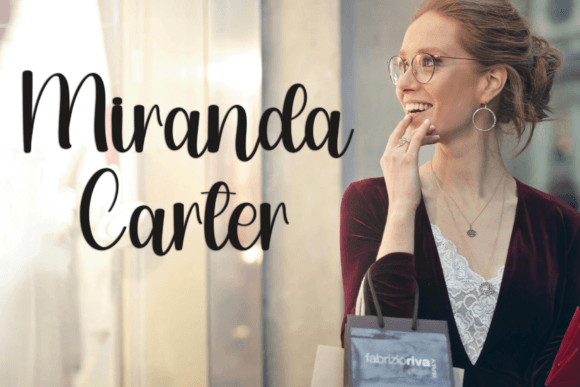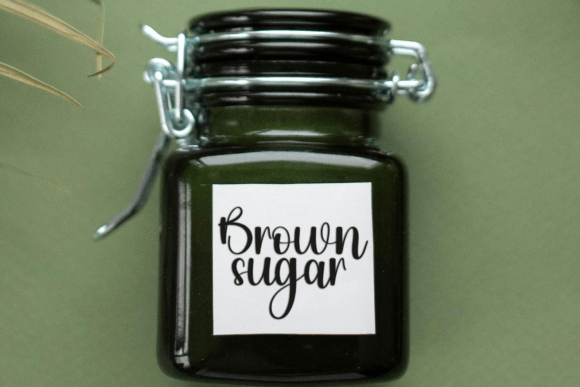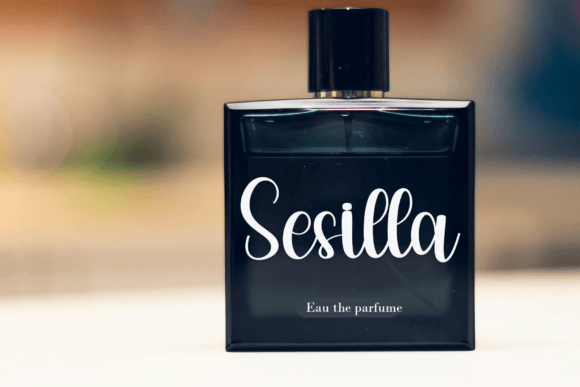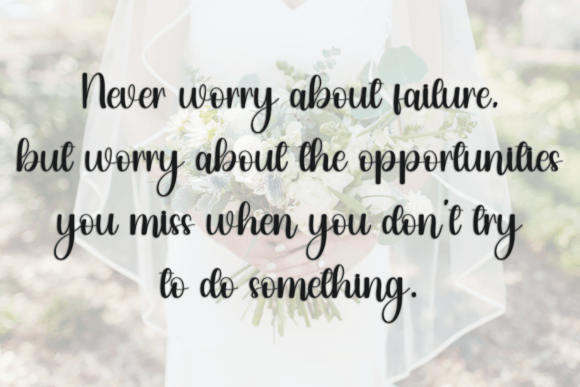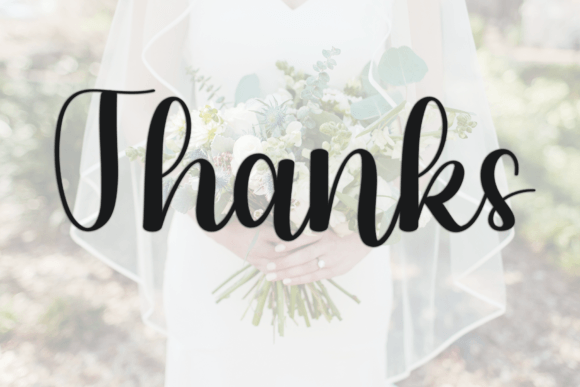
Bride Font: The Sweet and Friendly Handwritten Font for Your Design Needs
Are you looking for a font that can add a touch of sweetness and friendliness to your designs? Look no further than the Bride Font! This beautiful handwritten font is perfect for a wide range of design projects, from wedding invitations and decorations to branding and marketing materials. In this article, we’ll take a closer look at the Bride Font, its features, and how you can use it to take your designs to the next level.
What is Bride Font?
Bride Font is a sweet and friendly handwritten font that is designed to make your designs stand out. Its natural and unique style makes it incredibly fitting to a large pool of designs, and the only limit is your imagination! This font is perfect for designers and crafters who want to add a personal touch to their work. Whether you’re creating wedding invitations, party decorations, or social media graphics, the Bride Font is sure to make your designs look beautiful and eye-catching.
Features of Bride Font
The Bride Font has several features that make it a great choice for designers and crafters. Some of its key features include:
- Handwritten style: The Bride Font has a natural, handwritten style that gives it a friendly and approachable feel.
- Unique and distinctive: The font’s unique and distinctive style makes it stand out from other fonts, ensuring that your designs will be memorable and eye-catching.
- Versatile: The Bride Font is incredibly versatile and can be used for a wide range of design projects, from wedding invitations to social media graphics.
- Easy to read: Despite its handwritten style, the Bride Font is easy to read, making it perfect for designs that require a lot of text.
How to Use Bride Font in Your Designs
The Bride Font is easy to use in your designs, and here are a few ideas to get you started:
- Wedding invitations: The Bride Font is perfect for wedding invitations, adding a touch of sweetness and romance to your designs.
- Party decorations: Use the Bride Font to create beautiful party decorations, such as banners, garlands, and gift tags.
- Branding and marketing: The Bride Font can be used for branding and marketing materials, such as logos, business cards, and social media graphics.
- DIY projects: The Bride Font is perfect for DIY projects, such as scrapbooking, card making, and journaling.
Tips for Using Bride Font
Here are a few tips for using the Bride Font in your designs:
- Use it with other fonts: The Bride Font pairs well with other fonts, so don’t be afraid to experiment with different combinations.
- Play with colors: The Bride Font looks great in a variety of colors, so try experimenting with different colors to find the one that works best for your design.
- Experiment with sizes: The Bride Font can be used in a variety of sizes, from large headings to small body text.